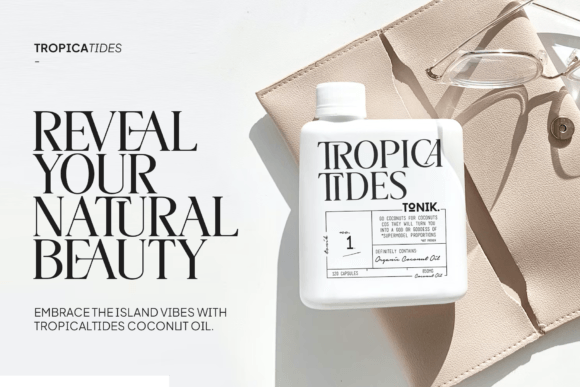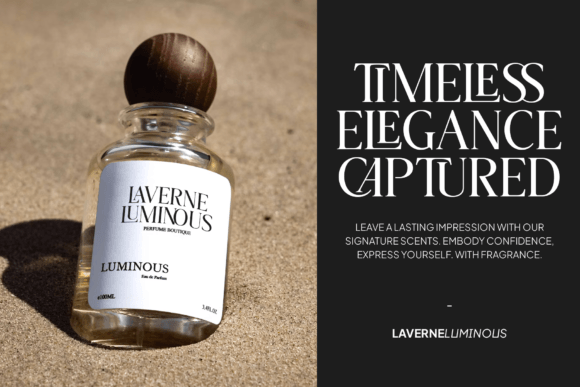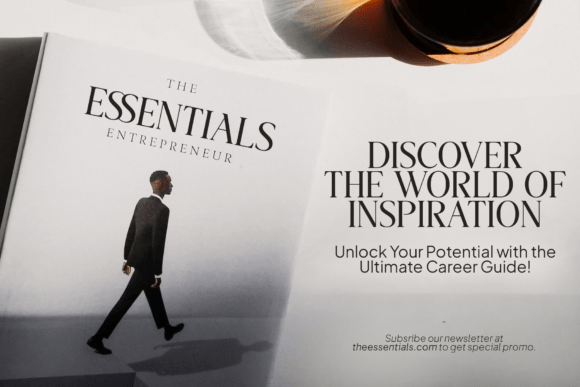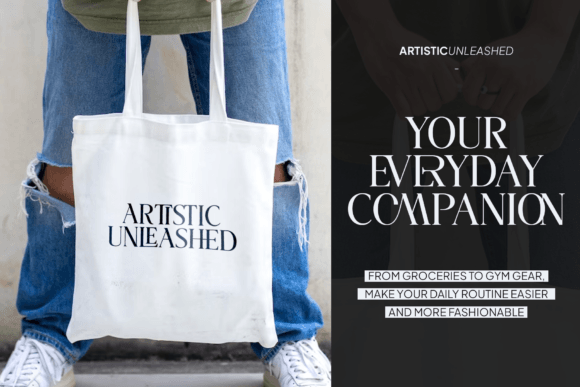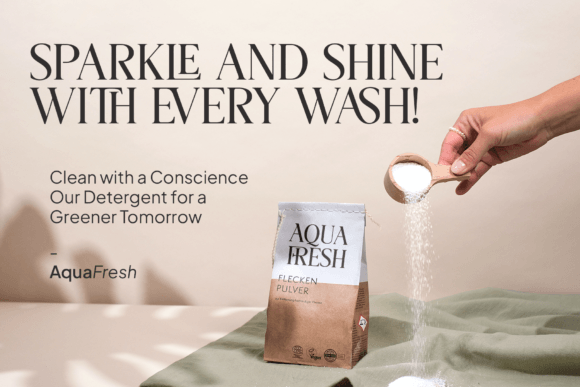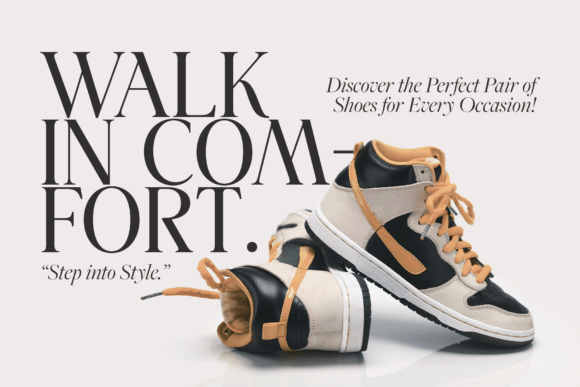
Introducing Chasther Stocks Font: Elevate Your Designs with Elegance and Sophistication
In the world of typography, a font can make or break a design. For designers and crafters seeking to add a touch of luxury and modern taste to their projects, Chasther Stocks Font is an exceptional choice. This stylish and elegant serif typeface is meticulously designed to bring simplicity, cleanliness, and sophistication to a wide range of applications.
What Makes Chasther Stocks Font Stand Out?
Chasther Stocks Font is not just another typeface; it’s a design statement. Its simplicity and elegance make it a perfect fit for projects that demand a high level of sophistication. Whether you’re working on branding projects, logos, wedding designs, social media posts, advertisements, product packaging, product designs, labels, photography, watermarks, invitations, stationery, or any other project that requires a touch of luxury, Chasther Stocks Font is the ideal choice.
Key Features of Chasther Stocks Font
- Stylish and Elegant Design: Chasther Stocks Font boasts a stylish and elegant serif design that adds a touch of sophistication to any project.
- Simple and Clean: The font’s simplicity and cleanliness make it versatile and easy to read, ensuring that your message is conveyed with clarity.
- PUA Encoded: Chasther Stocks Font is PUA encoded, which means you can easily access all the amazing glyphs and ligatures, giving you more creative freedom.
- Wide Range of Applications: From branding and logos to wedding designs and product packaging, this font is perfect for any project that requires a luxurious and modern feel.
Why Choose Chasther Stocks Font for Your Projects?
Choosing Chasther Stocks Font for your projects is a decision that can elevate your design to new heights. Here are a few reasons why designers and crafters are opting for this exceptional typeface:
- Versatility: Chasther Stocks Font is incredibly versatile, making it suitable for a wide range of projects and applications.
- Ease of Use: With its PUA encoding, accessing glyphs and ligatures is straightforward, allowing you to focus on the creative aspect of your project.
- Unique and Memorable: The elegant design of Chasther Stocks Font ensures that your project stands out, making it more memorable to your audience.
- Professional and Luxurious Feel: This font adds a professional and luxurious touch to any project, helping you to convey your message with style and sophistication.
How to Make the Most of Chasther Stocks Font
To truly make the most of Chasther Stocks Font, consider the following tips:
- Pair it with Other Fonts: Experiment with pairing Chasther Stocks Font with other fonts to create a unique and visually appealing design.
- Play with Sizes and Weights: Don’t be afraid to experiment with different sizes and weights of Chasther Stocks Font to add depth and hierarchy to your design.
- Utilize Glyphs and Ligatures: Take full advantage of the PUA encoding by incorporating glyphs and ligatures into your design to add an extra layer of sophistication.
Chasther Stocks Font is a game-changer for designers and crafters looking to add a touch of elegance and sophistication to their projects. With its stylish and elegant design, simplicity, cleanliness, and versatility, this font is perfect for a wide range of applications. Whether you’re working on a branding project, wedding design, or product packaging, Chasther Stocks Font is sure to elevate your design to new heights. So why wait? Explore the possibilities of Chasther Stocks Font today and discover how it can transform your designs.
Embark on a journey of creativity and sophistication with Chasther Stocks Font. Your next design project deserves the elegance and luxury that this exceptional typeface has to offer.